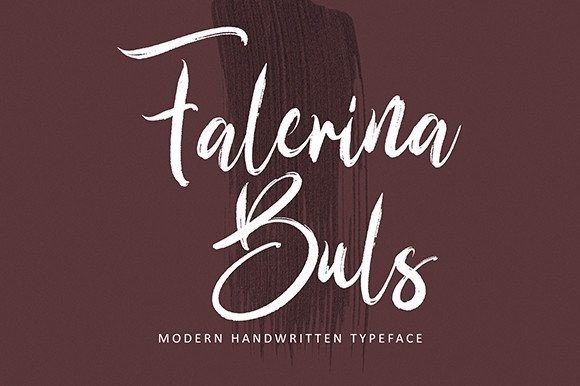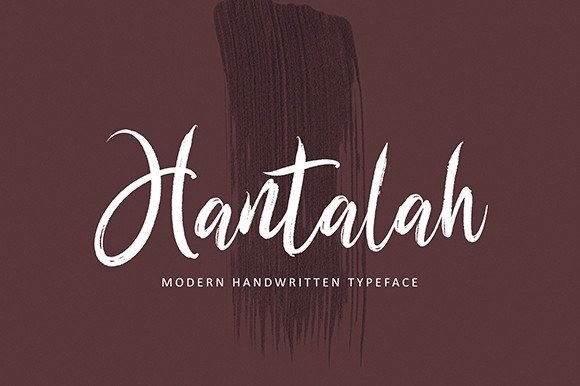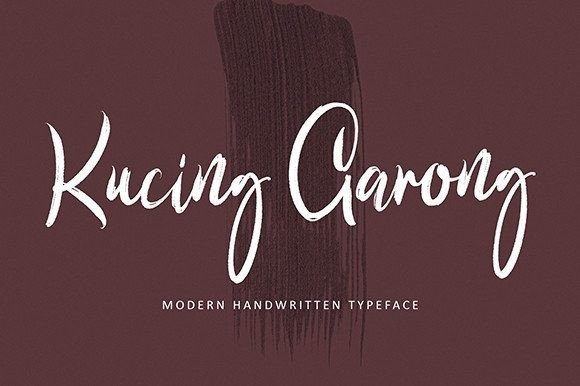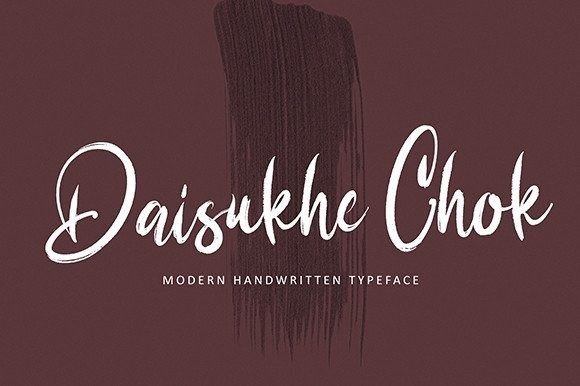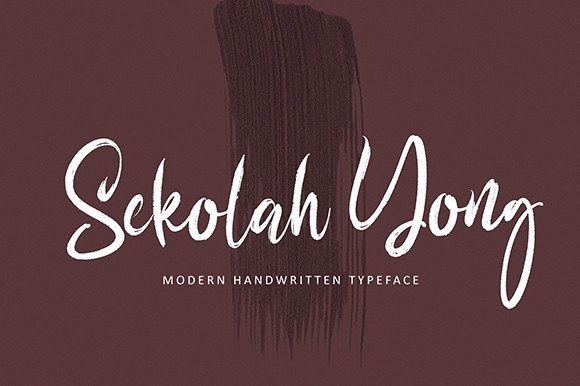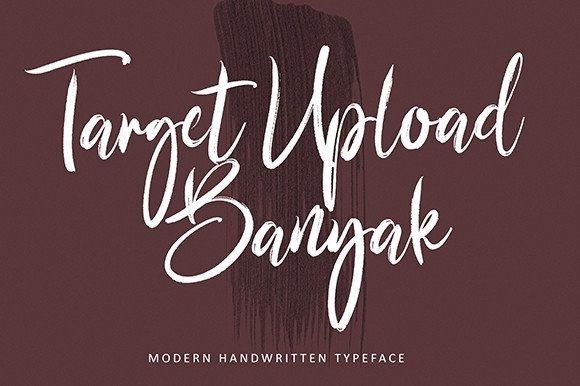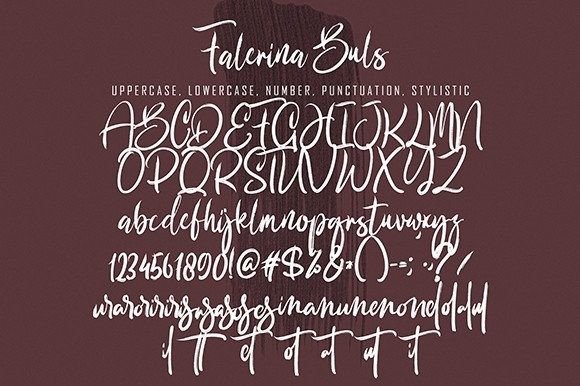
The Perfect Brushstroke: Unlocking the Power of Falerina Buls Font
You know that moment when you’re brainstorming a new project and suddenly, the perfect font pops into your mind? It’s like a spark of creativity that sets everything in motion. For many designers, that moment is often accompanied by the thought of a beautiful, handwritten font that adds a personal touch to their work.
Enter Falerina Buls Font, a modern handwritten font designed to captivate audiences with its unique charm. Whether you’re working on quotes, logos, blog headers, or posters, this font is sure to make a lasting impression. Its versatility and PUA encoding make it a valuable asset for designers, allowing them to access all the glyphs and swashes with ease.
With Falerina Buls Font, the possibilities are endless. From branding and lettering to invitations and stationery, this font is the perfect companion for any creative project. Its unique character and style will set you apart from the crowd and leave a lasting impression on your audience.
Falerina Buls Font Key Features
- Font Style: Script, Calligraphy
- Unique Characteristics: Elegant, cursive design with decorative flourishes, perfect for titles and headings
Falerina Buls Font Review
Falerina Buls Font has some great features that make it a great addition to any design project. ✨ It’s a beautiful, elegant script font that’s perfect for creating a luxurious and sophisticated look. The flowing lines and intricate details give it a high-end feel that’s sure to impress.
One of the things that really stands out about Falerina Buls Font is its versatility. ✨ It can be used for a wide range of applications, from wedding invitations and stationery to branding and marketing materials. It’s also a great choice for creating a cohesive look across multiple platforms.
While Falerina Buls Font has many great qualities, there are a few limitations to consider. ⚠️ One of the main issues is that it can be a bit difficult to read in smaller sizes. This can make it challenging to use for body text or other situations where readability is a top priority.
Overall, I’m really impressed with Falerina Buls Font. ✨ It’s a beautiful, elegant font that’s perfect for creating a high-end look. While it may have some limitations, I think it’s a great choice for designers who want to add a touch of sophistication to their projects.
- Beautiful, elegant script design
- Perfect for creating a luxurious and sophisticated look
- Great for a wide range of applications, including wedding invitations, stationery, branding, and marketing materials
- Difficult to read in smaller sizes
- Not ideal for body text or situations where readability is a top priority
Falerina Buls Font Practical Application Guide
The Falerina Buls font is ideal for creative projects, such as wedding invitations, birthday cards, and social media graphics. It’s also suitable for professional documents, like resumes and business reports, where a touch of elegance is required. Use the font’s unique features to add a personal touch to your designs.
To get the most out of the Falerina Buls font, experiment with different font sizes, colors, and styles. Use the font’s bold and italic styles to add emphasis to your text. Also, pair the font with other elegant fonts to create a visually appealing design.
Q: Is Falerina Buls available in different font weights and styles?
Yes, Falerina Buls is available in multiple font weights, including Light, Regular, Medium, Bold, and Extra Bold. It’s also available in both uppercase and lowercase letterforms, as well as in various ligatures and swashes. The font’s documentation and website provide more information on its available styles and weights.